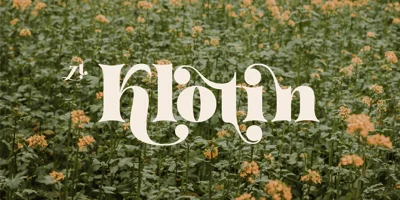
ZT Klotin Font
ZT Klotin Font is perfect for contemporary design studios, modern tech company branding, minimalist architecture firms, progressive software interfaces, innovative product packaging, and forward-thinking corporate communications. Its systematic character makes it ideal for technology companies, design agencies, architectural practices, modern brands, and any application requiring precise typography that conveys technical sophistication, systematic design, and the clean efficiency of contemporary digital design and methodical innovation approaches.
ZT Klotin Font is exciting because it represents the evolution of systematic design thinking through precisely engineered letterforms that reflect the methodical approach and technical precision that drive modern design excellence. Its systematic proportions and technically-inspired details evoke the satisfying order of well-organized systems and the professional confidence that comes from methodical design processes, making it perfect for brands valuing systematic excellence and technical precision. The font's systematic character transforms communications into expressions of design methodology.
ZT Klotin Font family includes systematically-designed weight variations typically featuring Thin, Light, Regular, Medium, Semibold, Bold, and Black options with precise styling that maintains technical authenticity. The family often incorporates systematic symbols, technical elements, and methodical characters designed for professional design applications, providing designers with comprehensive tools for creating authentic, systematic design-focused typographic compositions.
When selecting systematic design typography solutions, ZT Klotin Font represents an exceptional choice for technical and methodical design projects. This precise typeface brings instant systematic authenticity to any design, making it invaluable for tech companies, design studios, and professional organizations celebrating methodical excellence. Whether you're developing technical product branding, creating systematic design portfolios, or designing methodical corporate communications, ZT Klotin Font provides the systematic precision and technical authenticity essential for establishing methodical design leadership in today's precision-focused professional marketplace.